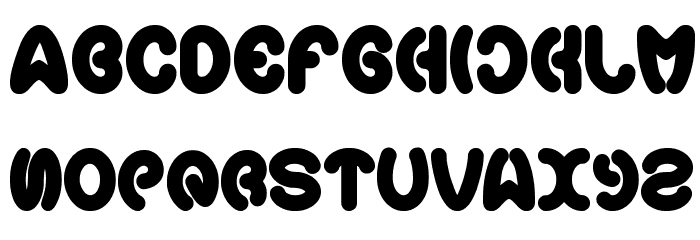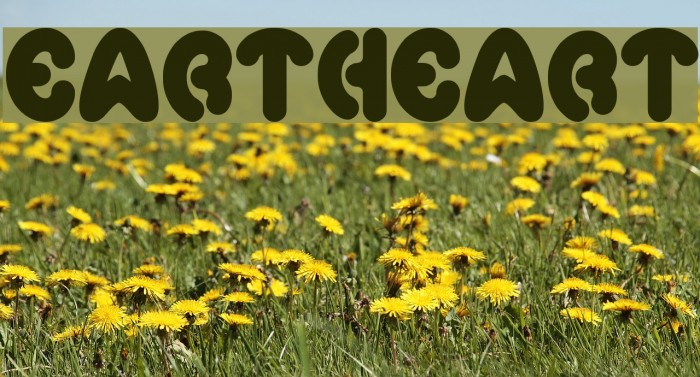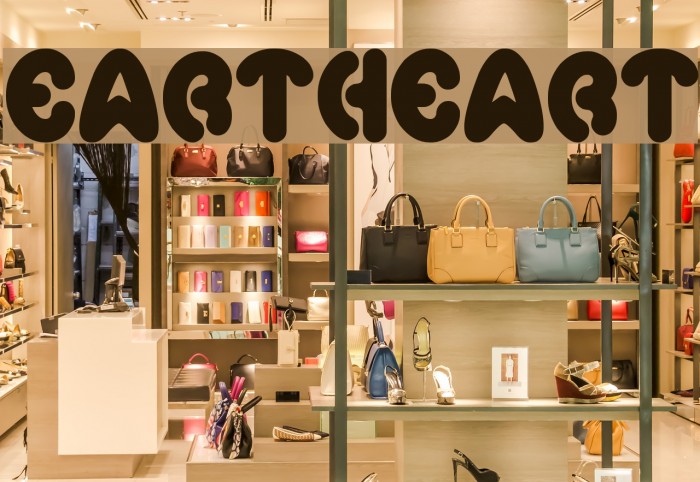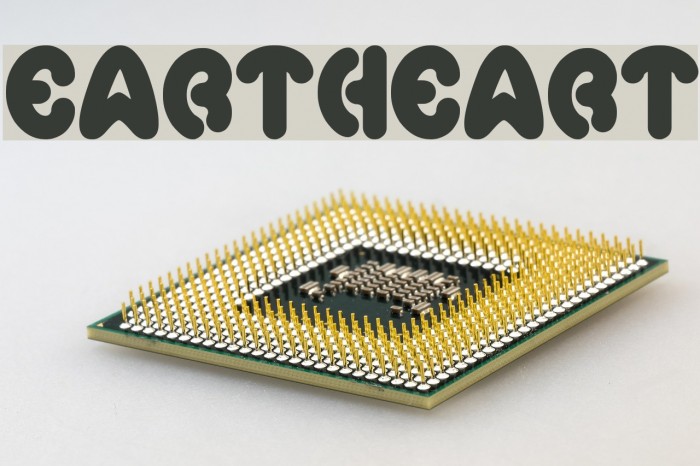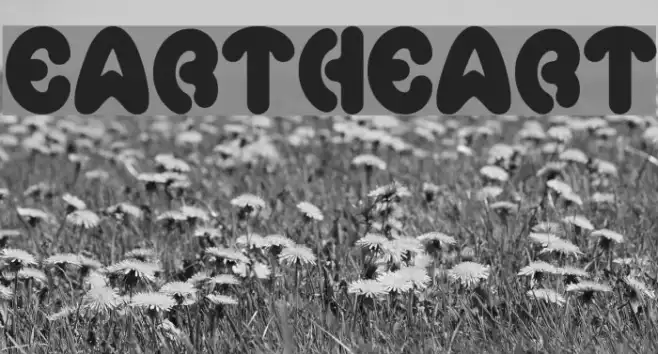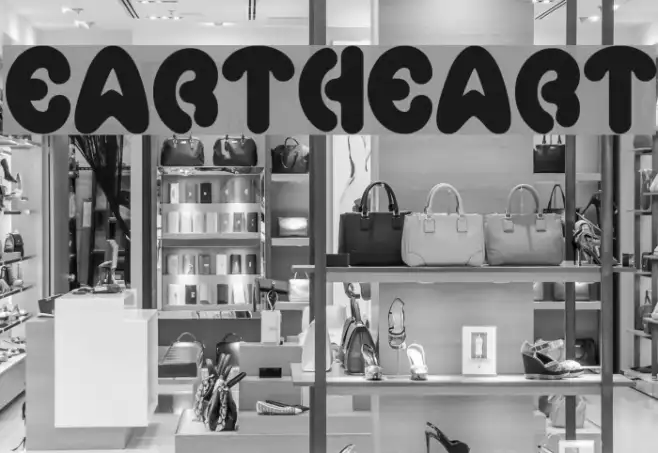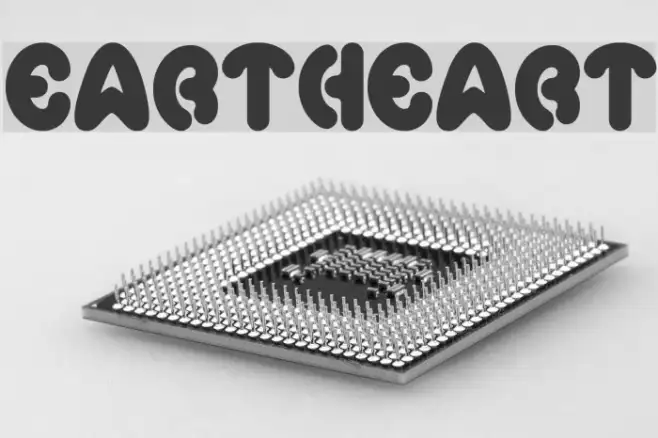
eartheart Font
This font features bold, rounded characters with a playful and whimsical style. The letters are thick and have a bubbly appearance, creating a sense of fun and creativity. The uniformity in stroke width gives it a cohesive look, while the rounded edges soften the overall aesthetic. This font is highly decorative, making it suitable for eye-catching designs. The characters are closely spaced, enhancing the compact and dense feel of the text. Its unique style is perfect for projects that require a touch of personality and flair.
A bold, rounded, and playful decorative font with a bubbly appearance.
- Proposed Projects: Ideal for children's books, playful branding, party invitations, and creative posters.
- Character Spacing: Tight
- Overall Style: Playful, Whimsical, Decorative